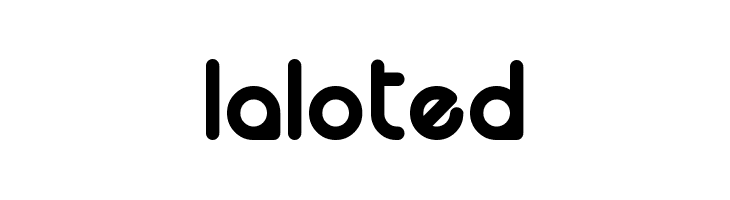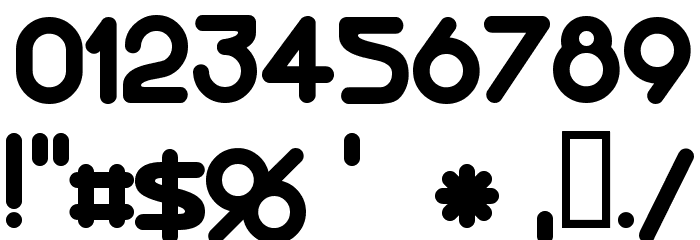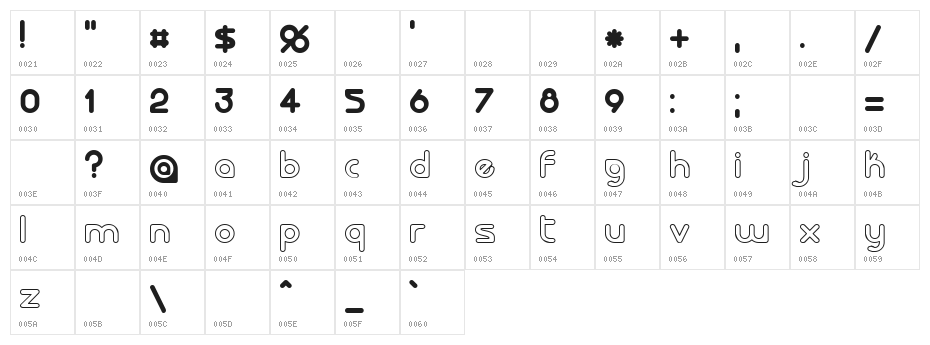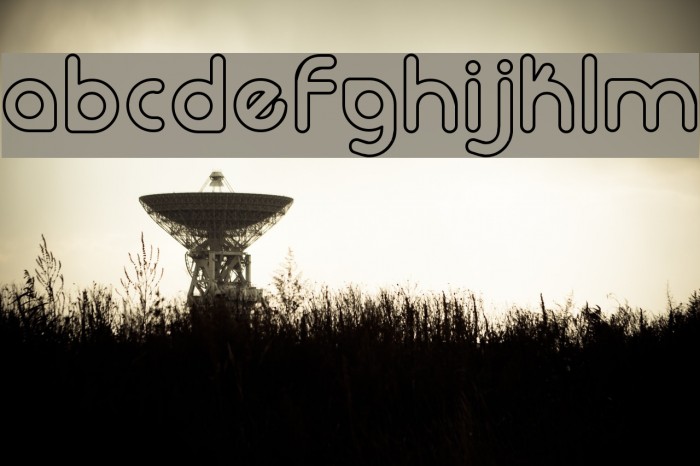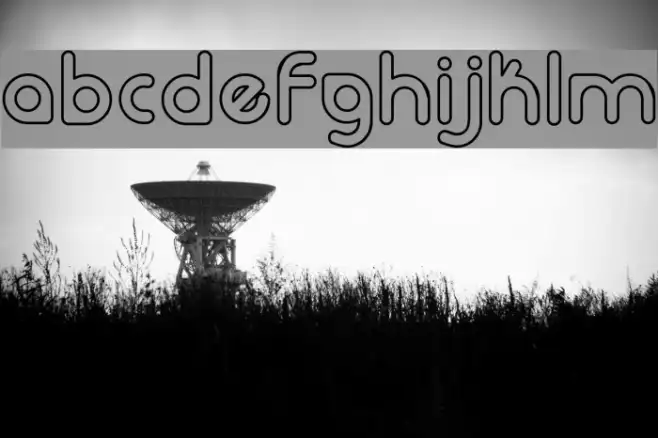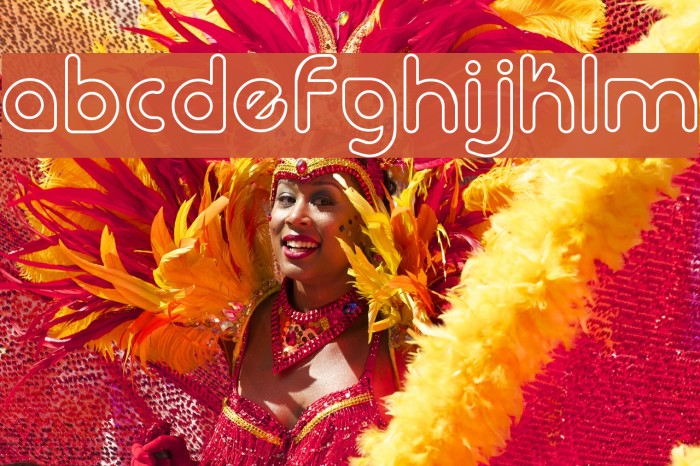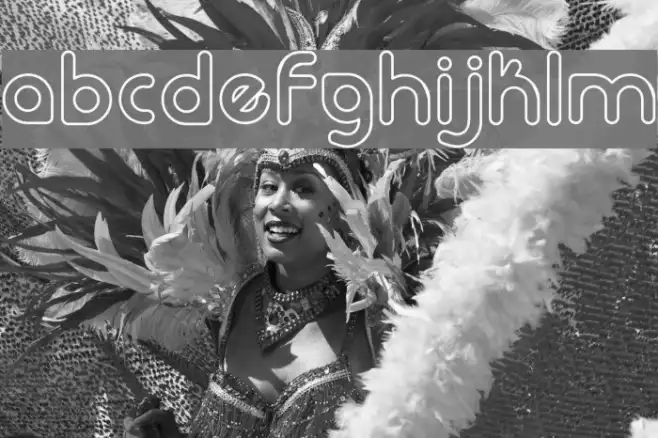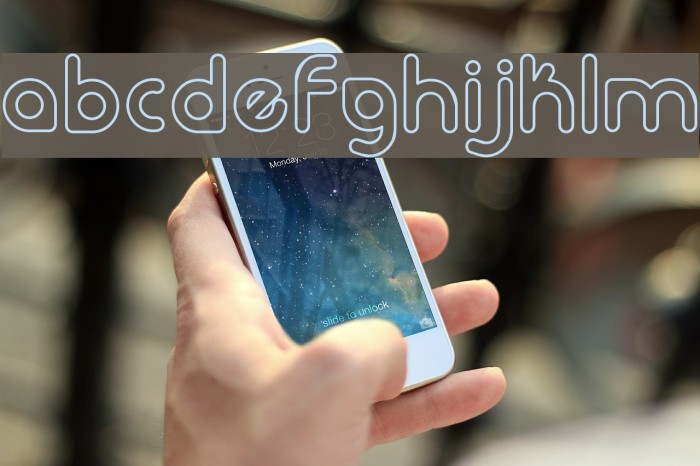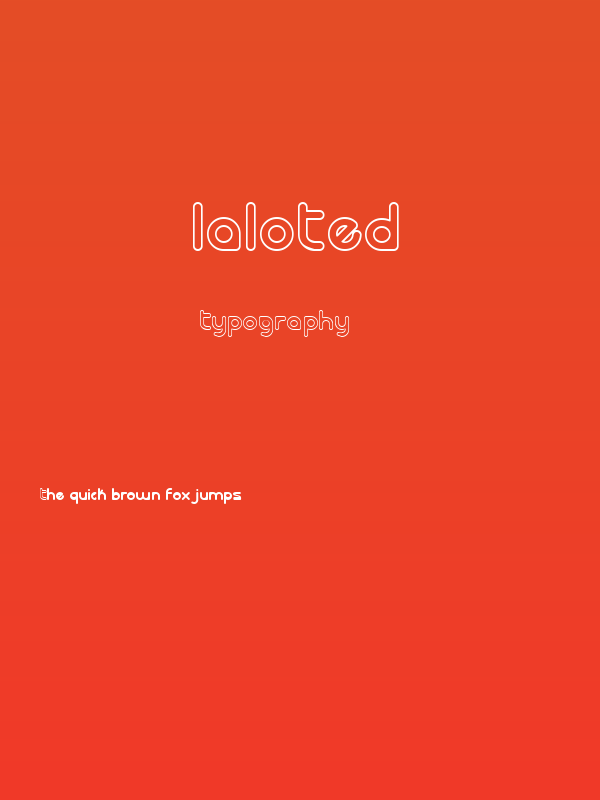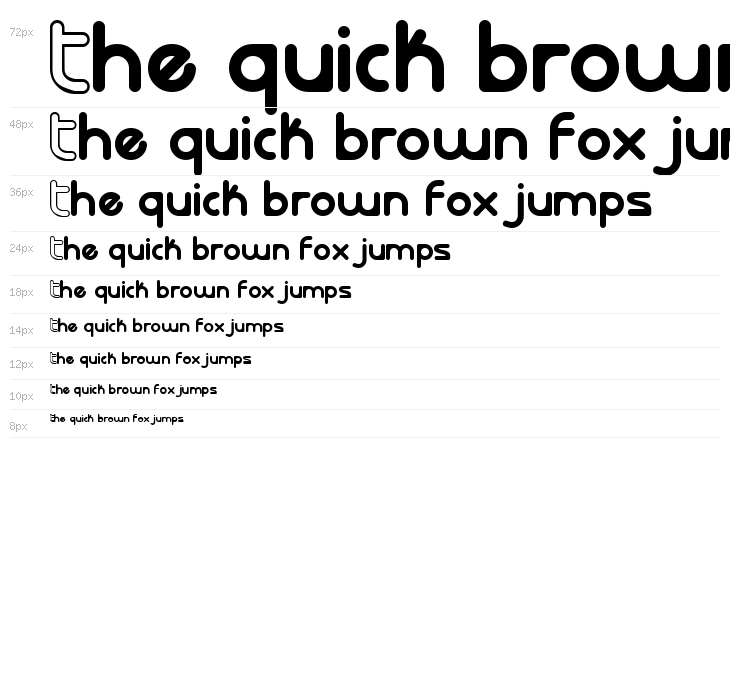
laloted Font
laloted Description
This font features a playful and modern design with rounded edges and a bold appearance. The characters are uniform in width, creating a cohesive and balanced look. The uppercase and lowercase letters maintain a consistent style, with smooth curves and a friendly aesthetic. The numbers and special characters follow the same design principles, ensuring versatility across various applications. The font's boldness and rounded forms make it suitable for projects that require a contemporary and approachable feel.